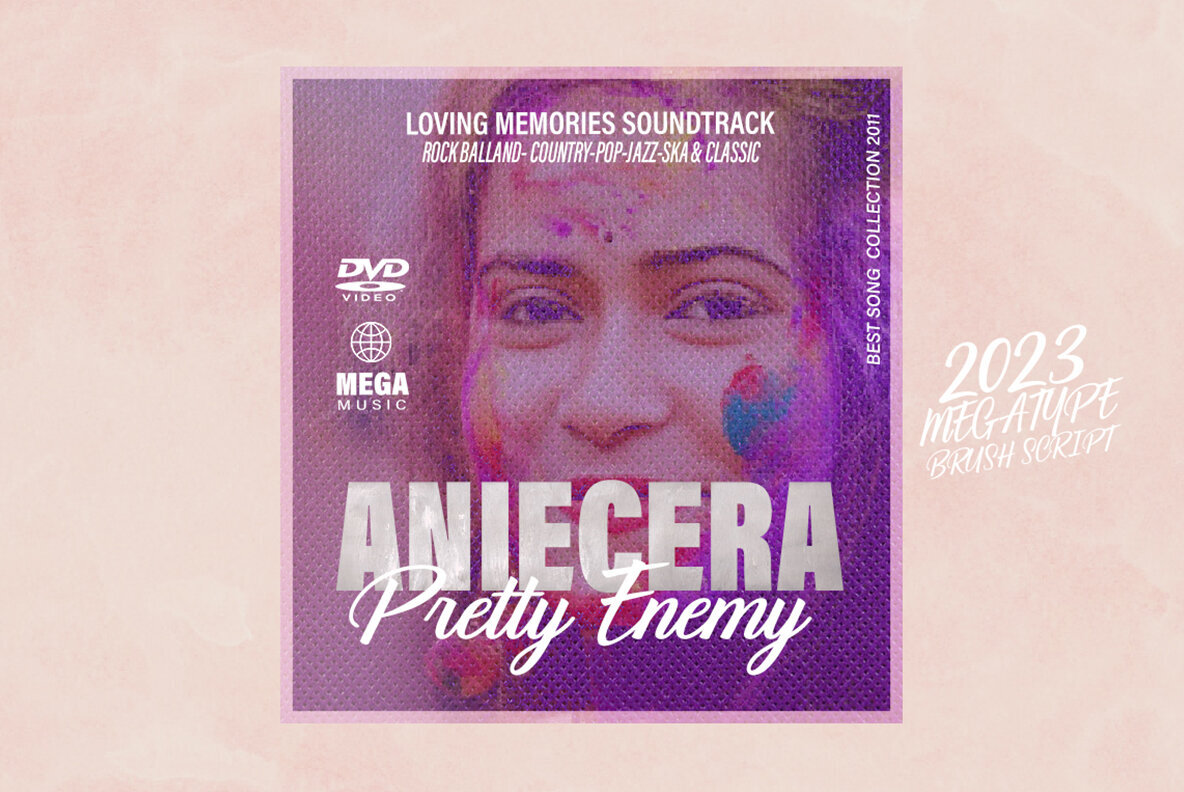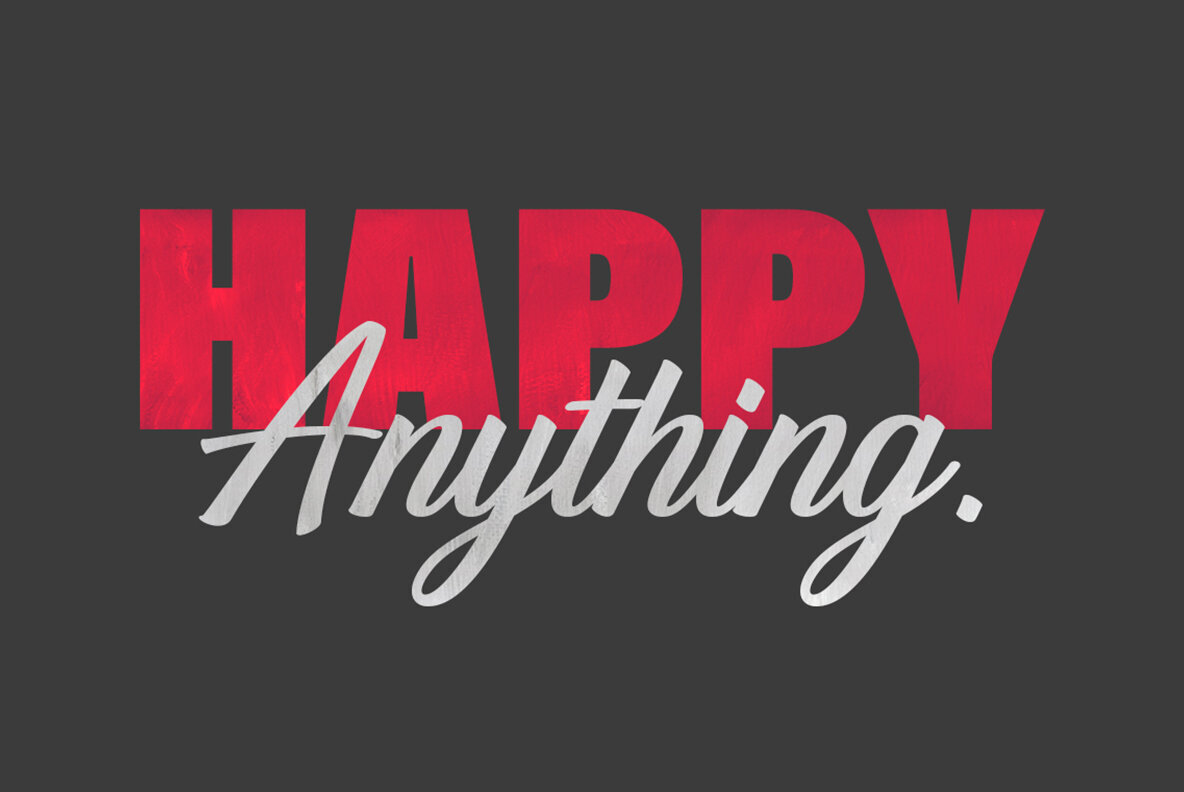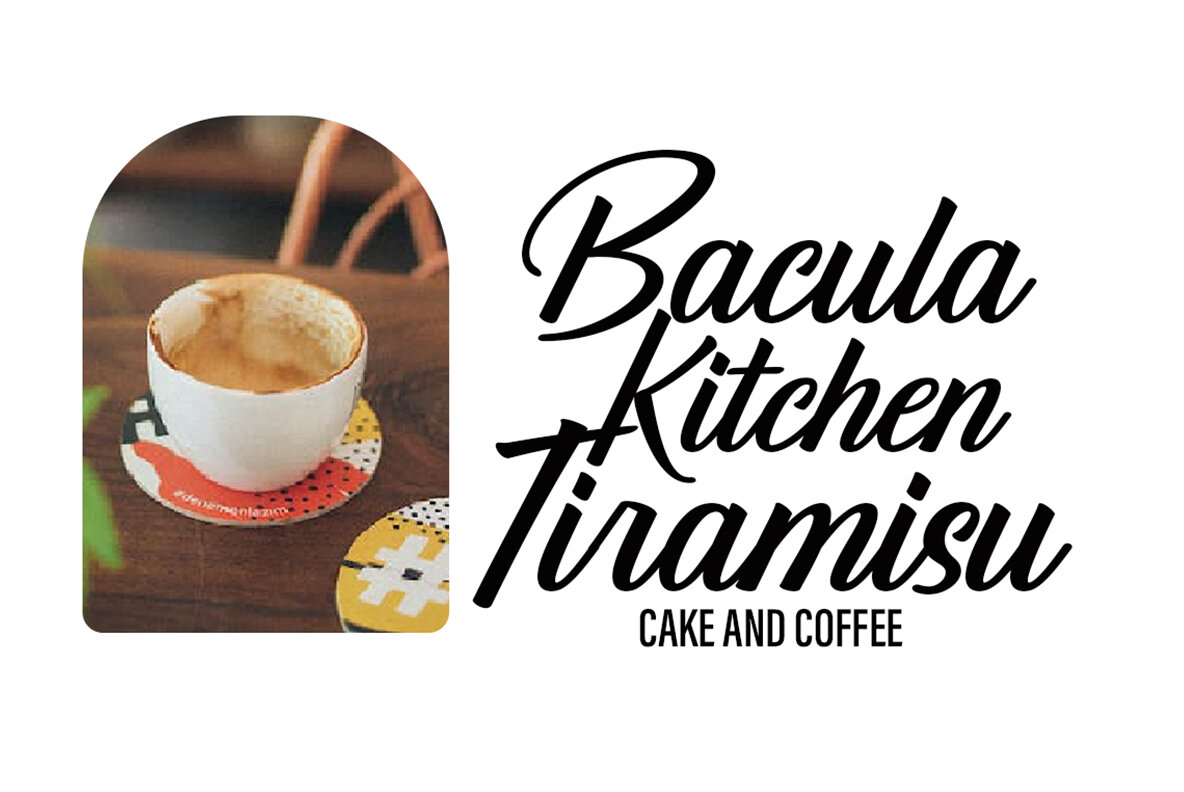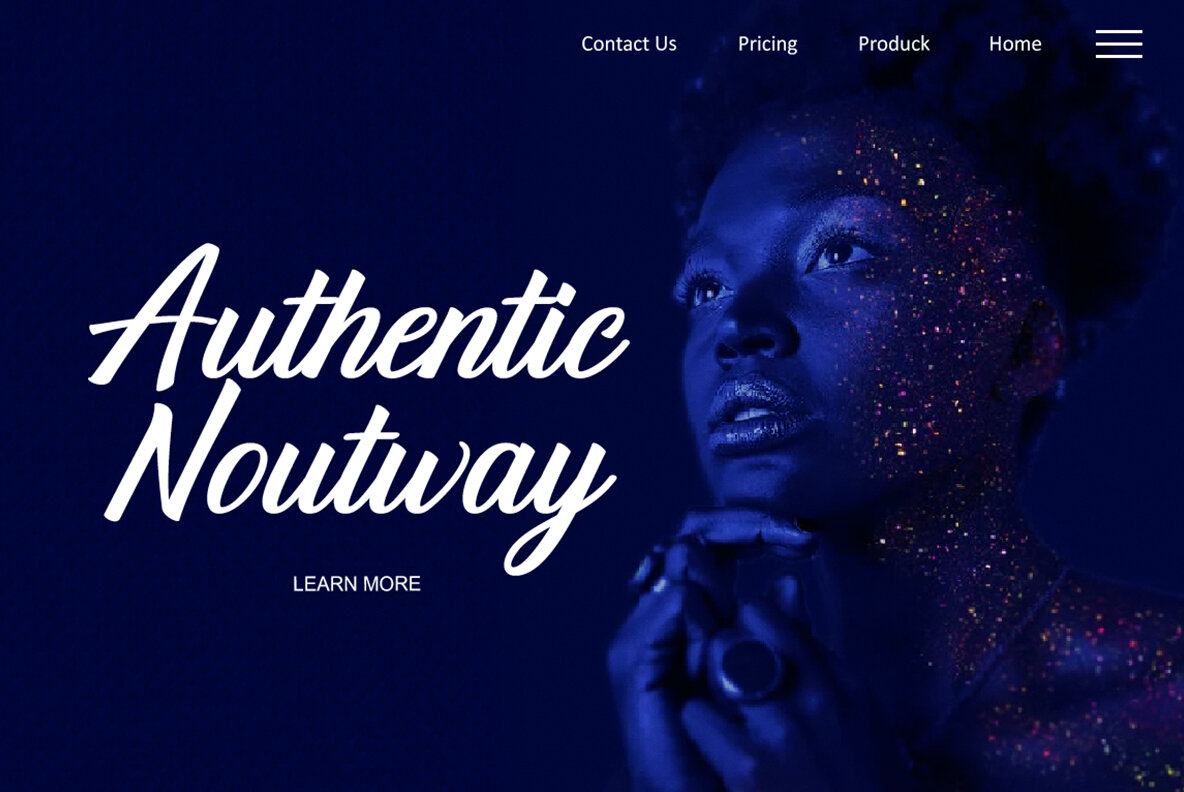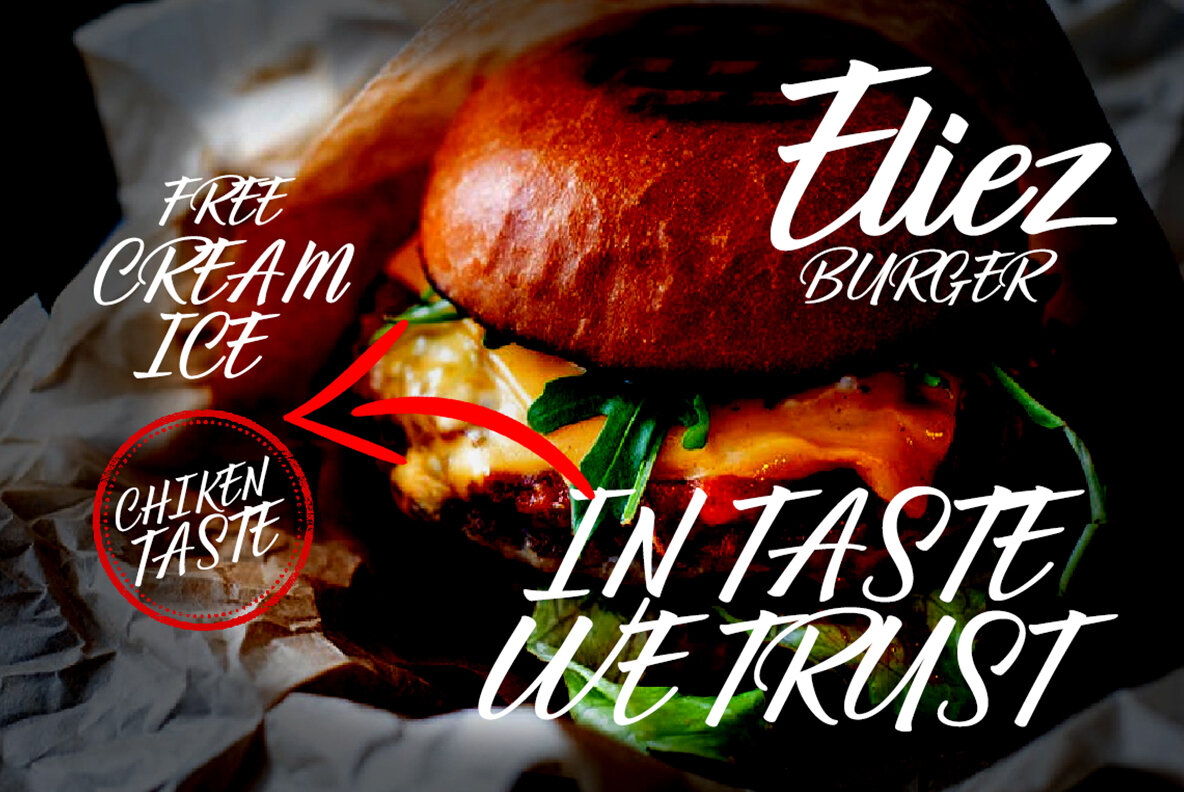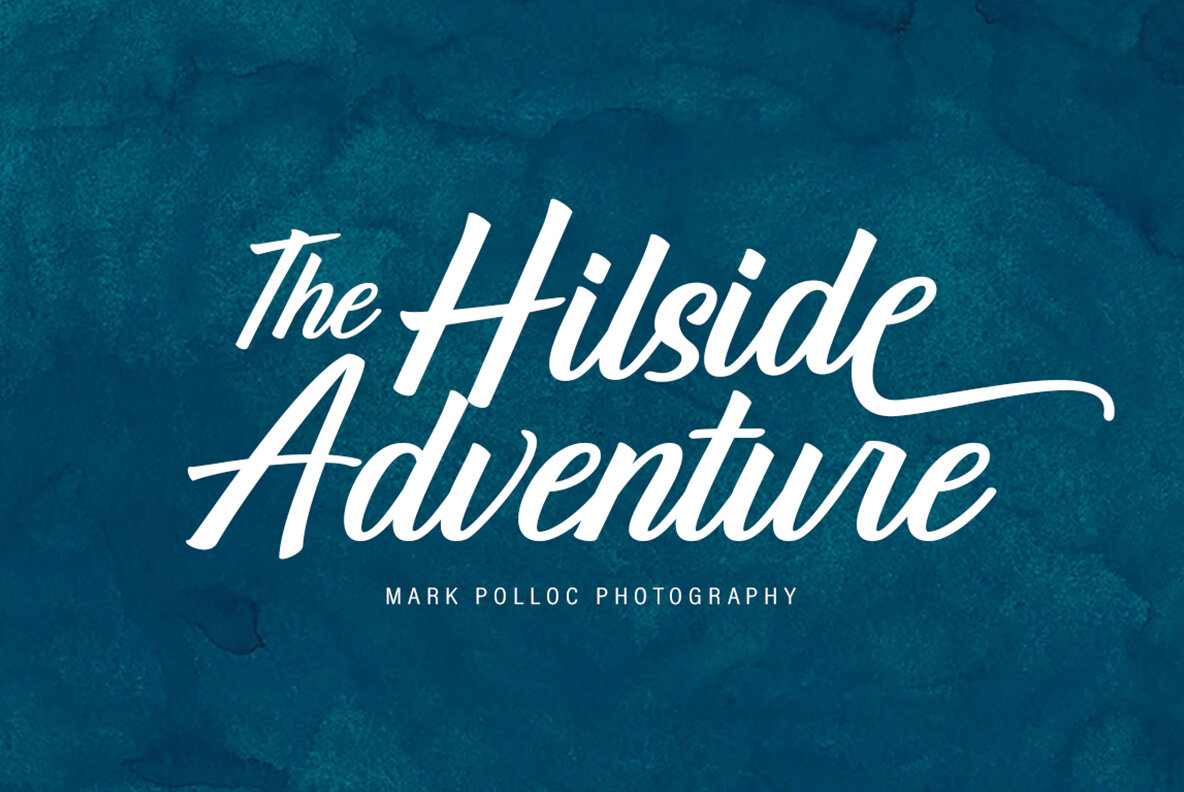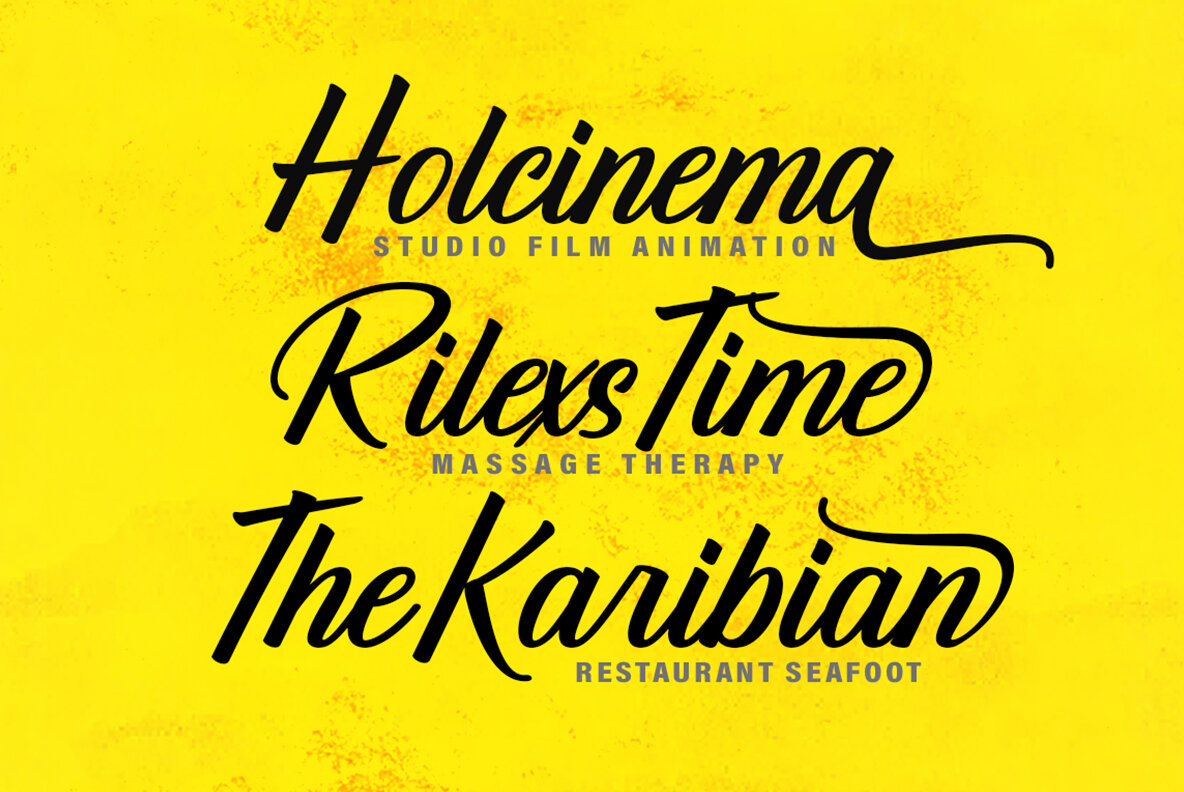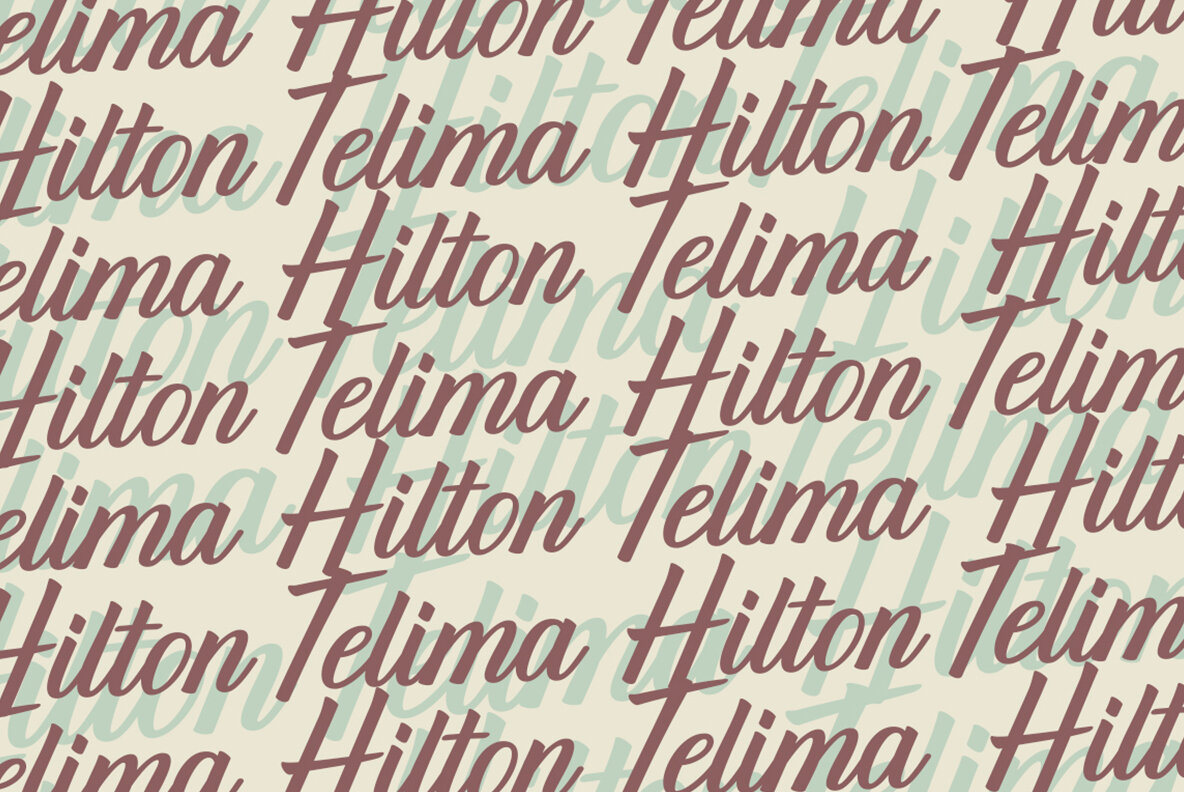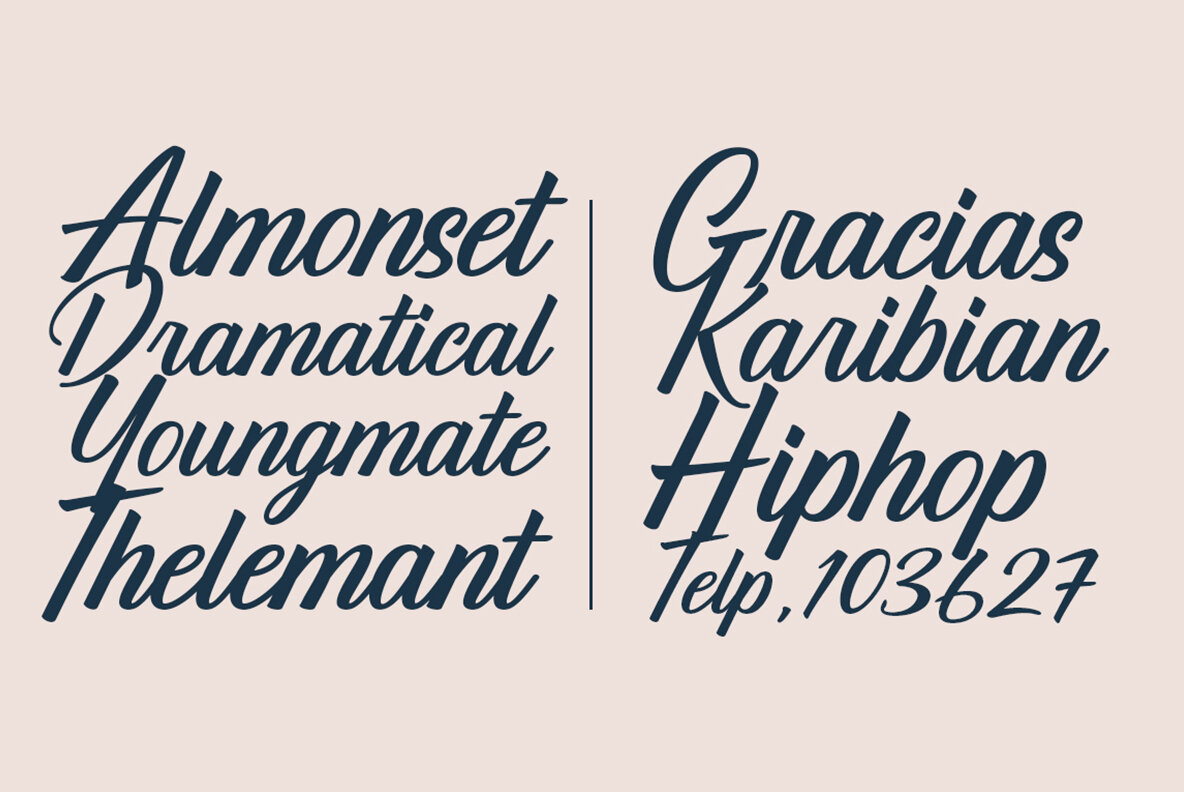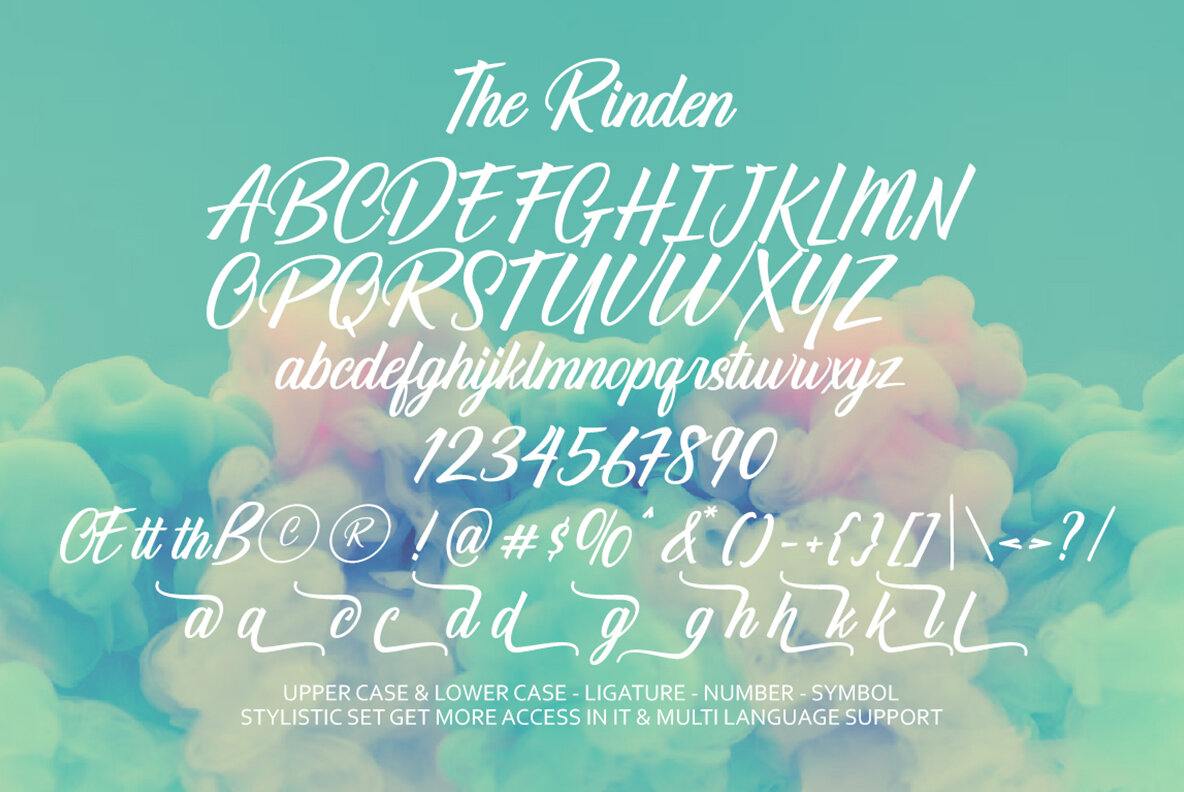
The Rinden Font
The Rinden Regular
The Rinden captures the elegance of vintage sign painting, offering a modern brush script that exudes simplicity and class. Ideal for elevating creative projects, it emulates the stunning effect of brush painting. This versatile typeface enhances diverse applications, making it perfect for both professional and artistic endeavors. Enjoy this font for projects ranging from branding to album covers. With The Rinden, every design achieves a sophisticated and natural look.The Rinden: Embracing Vintage Brush Script